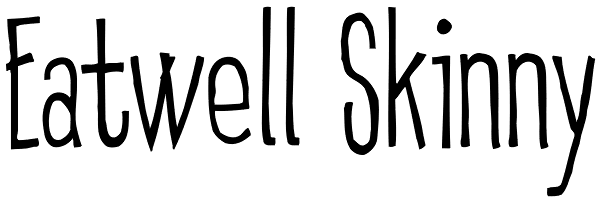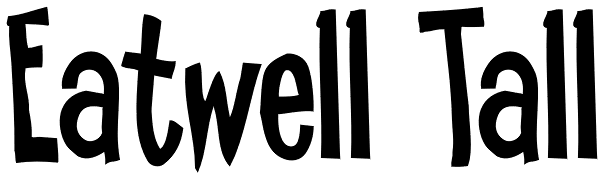
Eatwell
Formerly known as Eatpoo, Chank found it ironic that the first place he saw this font family in use was on the grocery bags for the local food co-ops. He thought it was funny that some designer used a font named Eatpoo for a stinkin' hippy store...